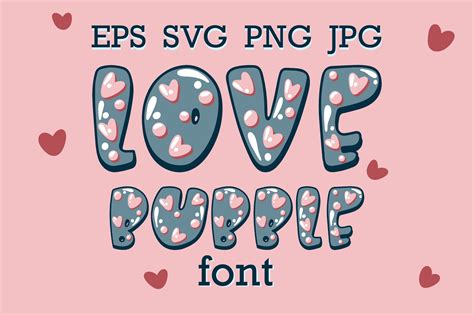
What are Bubble Love Fonts?
**Bubble love fonts** are a whimsical and romantic style of script font that mimics the appearance of hand-lettered bubble writing. They are characterized by their rounded, bubbly letters, often with a playful and slightly irregular appearance. This style of font adds a touch of sweetness and charm to any design project, making them perfect for expressing love, joy, and affection.
These fonts often feature a playful and slightly irregular appearance, adding a touch of personality and charm to your designs. The roundness of the letters creates a sense of warmth and approachability, while the slightly irregular nature reinforces the feeling that these fonts are handwritten, making them feel personal and unique.
The Allure of Bubble Love Fonts
The beauty of **bubble love fonts** lies in their ability to evoke a range of positive emotions. Their charming, flowing lines and rounded forms create a sense of warmth, happiness, and playful innocence. These fonts are perfect for adding a romantic touch to everything from wedding invitations and Valentine's Day cards to birthday greetings and social media graphics. Whether you're designing for a personal project or a professional client, **bubble love fonts** can help you create something truly special and memorable.
Popularity and Usage of Bubble Love Fonts
**Bubble love fonts** have gained immense popularity across various platforms. They are frequently sought after by graphic designers, web designers, calligraphers, and artists looking to add a touch of unique charm to their creations. These fonts are particularly well-suited for projects that require a touch of romance, playfulness, and personality.
Why Choose Bubble Love Fonts?
There are numerous reasons why designers and individuals alike find themselves drawn to **bubble love fonts.** Here are some key factors:
- Romantic and Playful Aesthetics: The rounded, bubbly forms of these fonts evoke a sense of warmth, joy, and lightheartedness. They can add a touch of romance to any design project.
- Unique and Eye-Catching: Bubble love fonts stand out from the crowd, adding a distinct personality and visual appeal to your designs. They are sure to capture attention and leave a lasting impression.
- Versatility: While they are best known for their romantic applications, **bubble love fonts** can be versatile enough to be used in a wide range of design projects. They can be paired with other fonts, colors, and textures to create unique and engaging designs.
- Readability: Despite their playful nature, **bubble love fonts** are generally readable, making them suitable for various text-based designs from invitations to blog posts.
- Personal Touch: Many **bubble love fonts** have a hand-drawn aesthetic, giving them a personal and unique feel. This can make your designs feel more authentic and heartfelt.
Choosing the Right Bubble Love Font
With the vast number of script fonts available, it can be overwhelming to choose the perfect **bubble love font** for your project. Here are some tips to help you narrow down your search:
- Consider the Project: What is the purpose of your design? What emotions do you want to evoke? Knowing the intended audience and the message you want to convey will help you select a font that aligns with your goals.
- Experiment with Different Styles: There are various styles of **bubble love fonts,** ranging from classic and elegant to playful and quirky. Explore different options and see what resonates best with your vision.
- Pay Attention to Letterforms: Examine the individual letterforms of each font. Do they flow well together? Are they easy to read? A well-designed font will have a balanced and harmonious appearance.